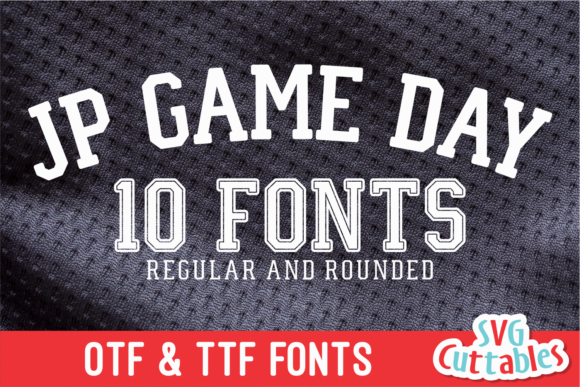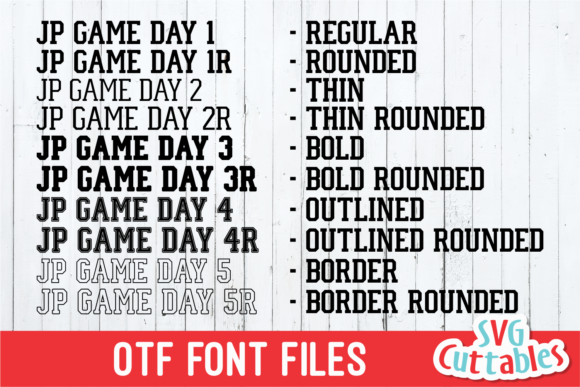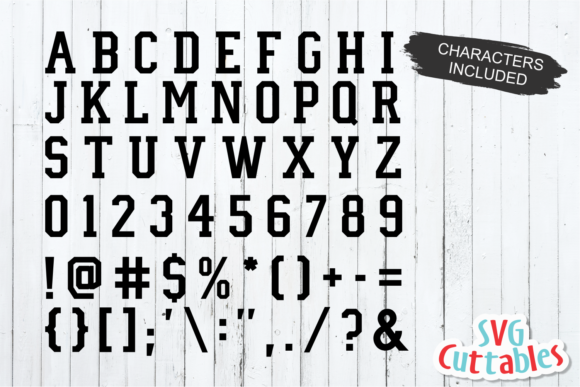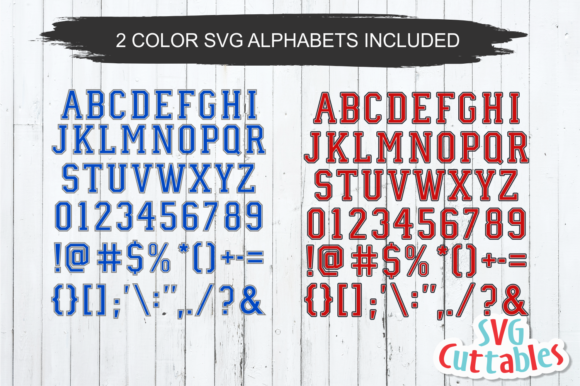
JP Game Day Font: A Bold Serif Font for Sporty Logo Design & Printable Projects
About the JP Game Day Font
Introducing the JP Game Day Font, a beautifully crafted typeface designed to elevate your creative projects. JP Game Day is a cool and sporty serif font family, perfect for your most creative ideas and projects! The characters look solemn and well-balanced, just right for sporty events, banners, magazines, apparel designs, and so much more.
Its strong, confident serifs make JP Game Day ideal for headlines, logos, and short impactful text in sports-related branding, posters, and packaging. The font’s boldness works well for eye-catching titles and short messages but isn’t suited to lengthy body copy or UI elements where legibility at smaller sizes is crucial.
This font’s energetic yet controlled personality pairs well with clean sans-serif fonts like Open Sans for body text or a geometric sans-serif like Montserrat for a modern feel. For a more playful approach, consider pairing it with a rounded sans-serif. Avoid pairing it with overly decorative scripts, which might clash with its structured forms.
JP Game Day projects a bold and energetic yet sophisticated image, making it suitable for brands focused on athleticism, competition, or a sense of powerful action. Its balanced forms prevent it from being overwhelming, ensuring readability even at larger sizes.